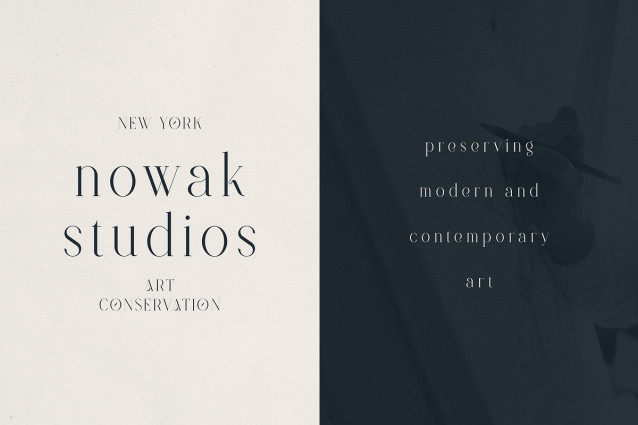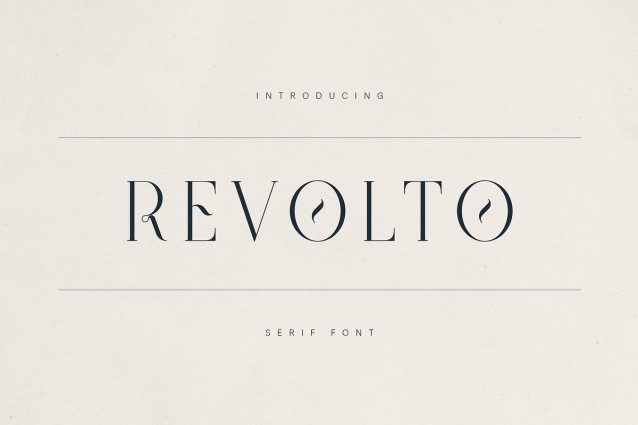
Revolto Font
Revolto Font is a refined, modern display serif font that seamlessly blends timeless elegance with creative innovation. Designed for premium branding, editorial design, and high-end creative projects, Revolto stands out with its delicate contrast and graceful curves.